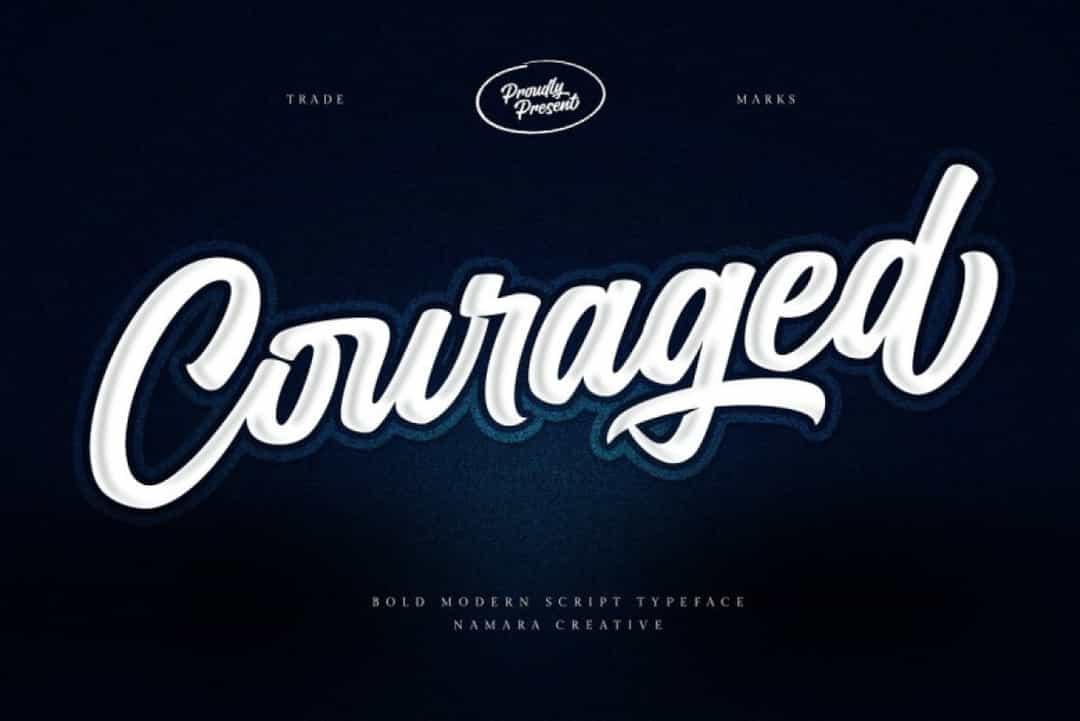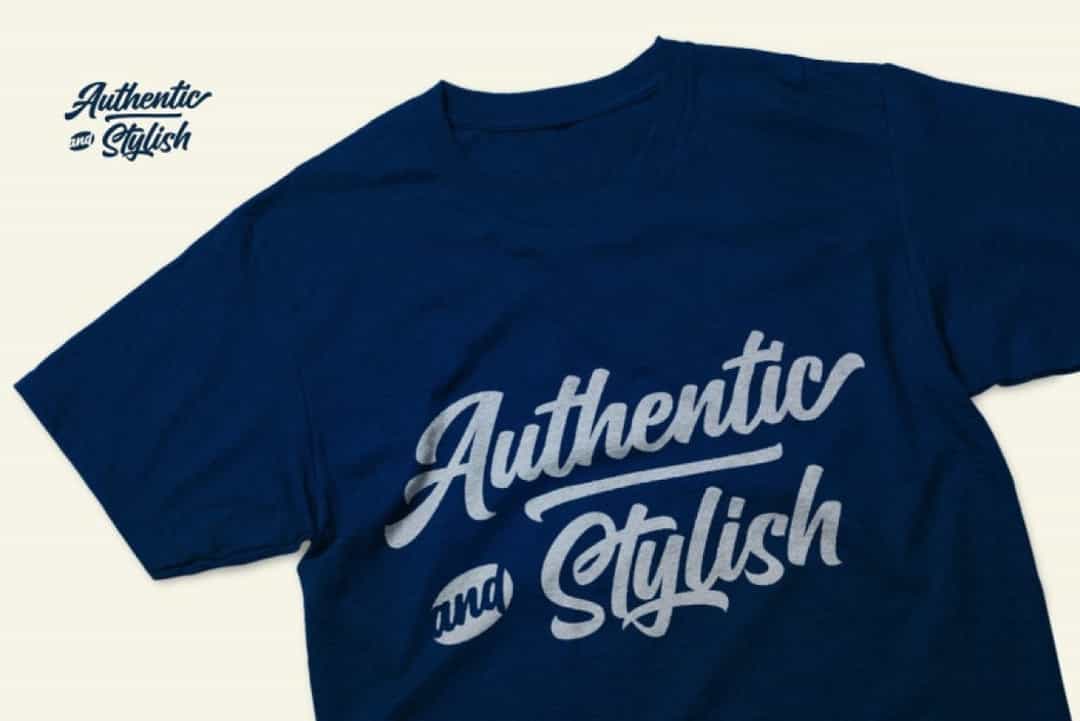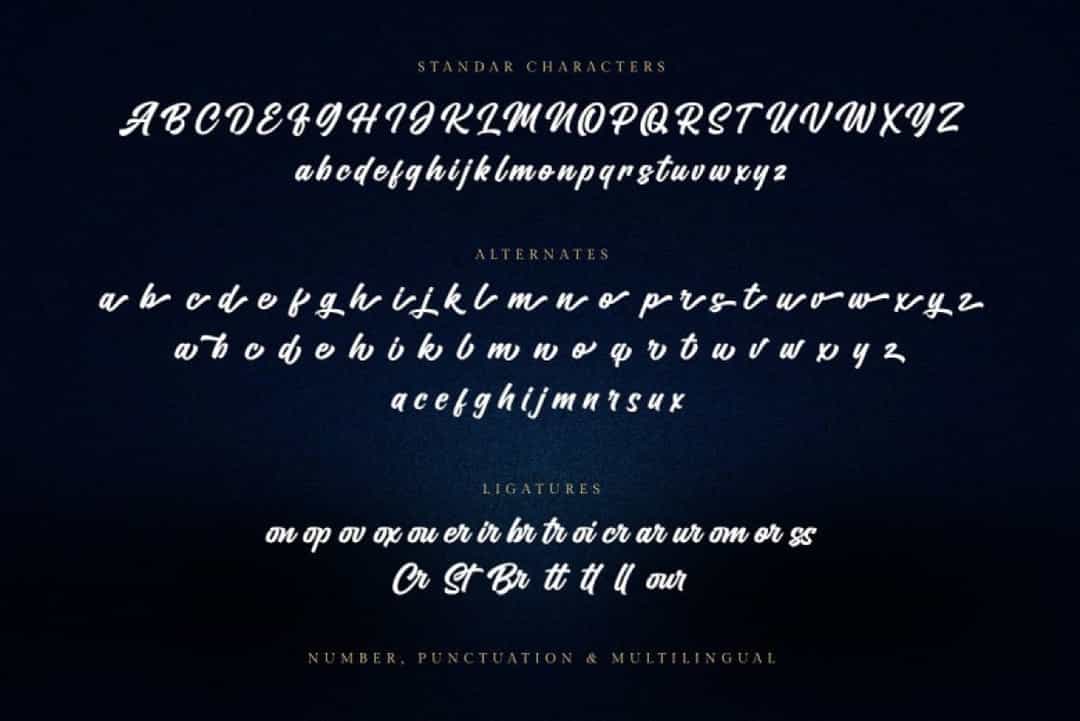
Couraged is a bold and contemporary script-style brush font inspired by natural hand lettering style, ideal for logotype, branding, promotional ads, quotes design, packaging design, t-shirt designs, posters merchandise social media use as well as much more.